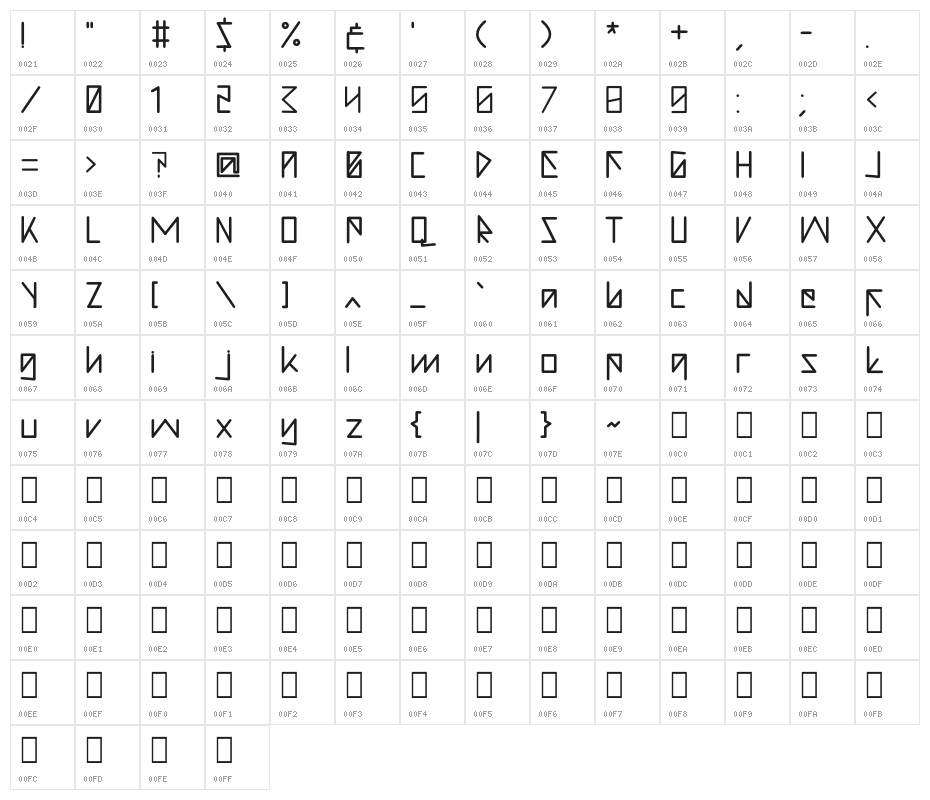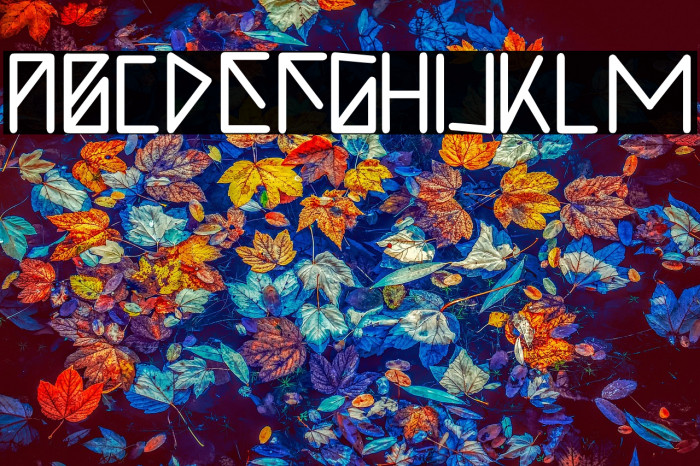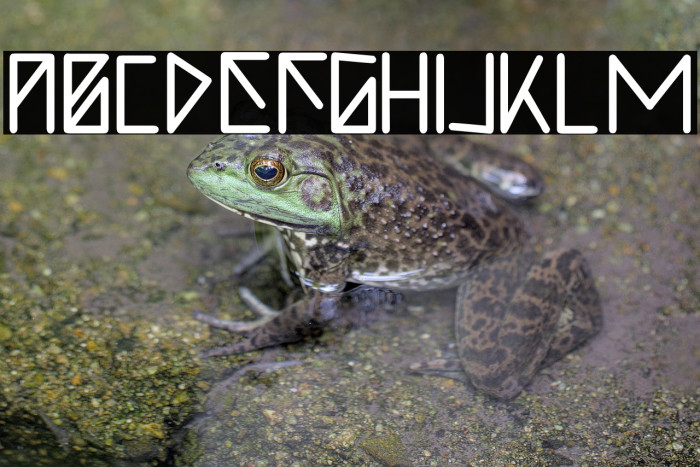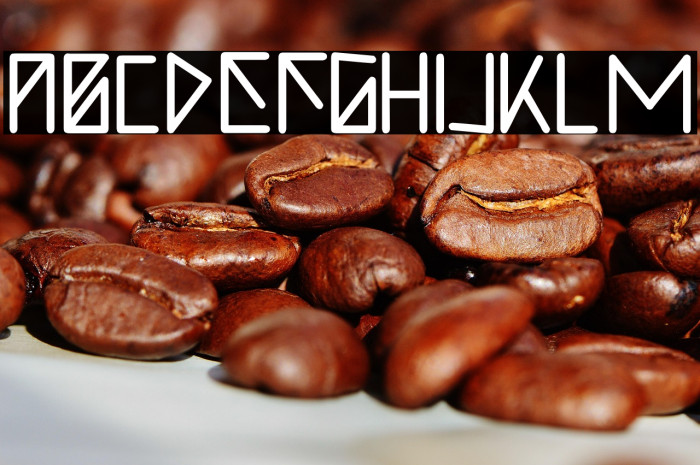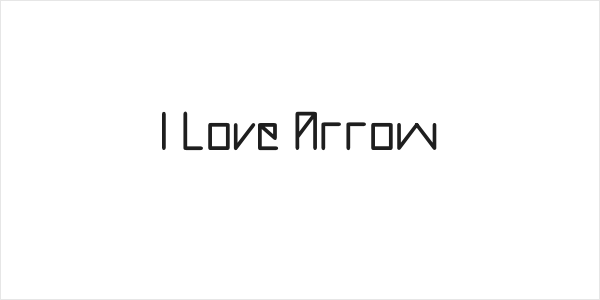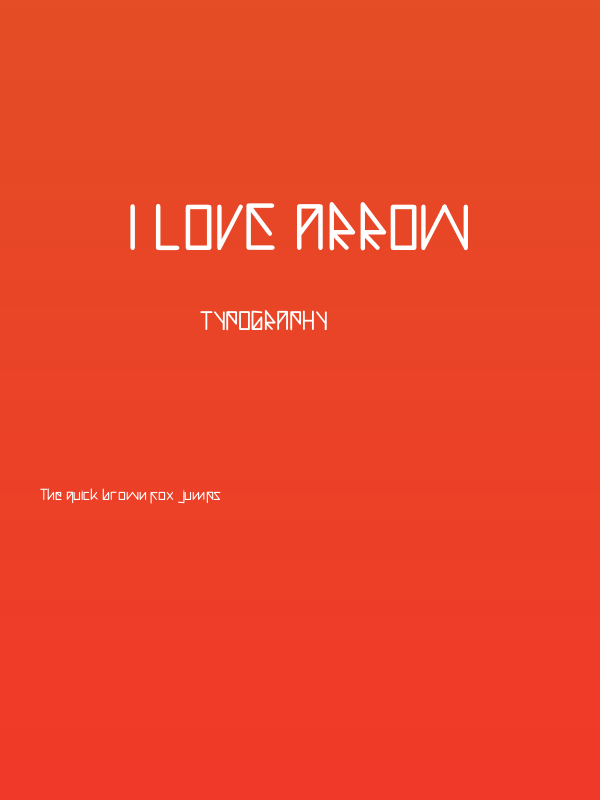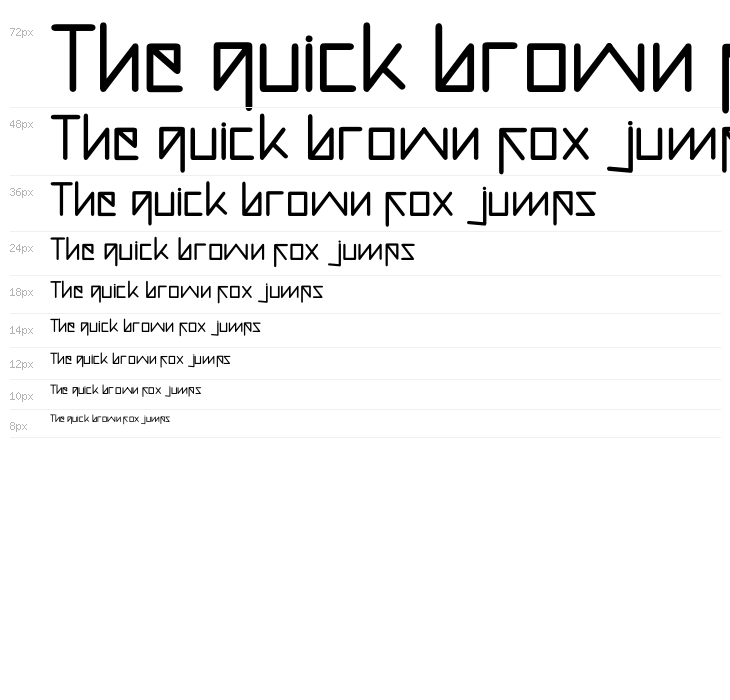
I Love Arrow Font
I Love Arrow Description
This font features a unique, geometric design with a modern twist. Each character is crafted with sharp angles and straight lines, creating a sense of movement and direction. The uppercase letters are bold and striking, while the lowercase letters maintain a consistent style with slightly softer edges. Numbers and special characters follow the same geometric pattern, ensuring a cohesive look across all text. The font's distinct style makes it stand out, offering a fresh take on traditional letterforms. Its design is both functional and artistic, making it suitable for a variety of creative projects.
Proposed ProjectsIdeal for branding, logos, posters, and modern digital interfaces.